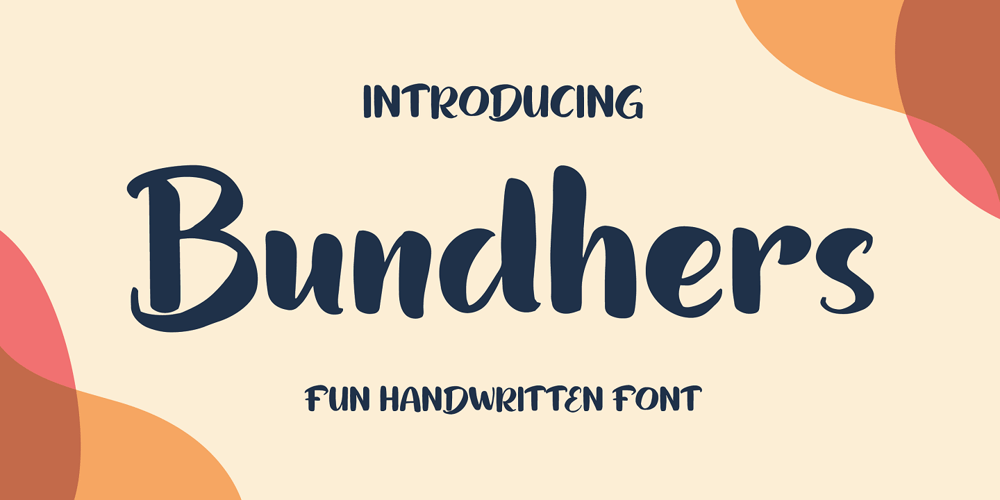
Bundhers
Bundhers font
Bundhers Font Family was designed by Patria Ari Wijonarko and published by Patria Ari. Bundhers contains 1 styles and family package options. Bhunders – a fun handwritten typeface. With this font, you can use it for book and magazine cover, social media, headline, logo, crafts, merchandise, digital products, and more.This font available in Uppercase, Lowercase, Number, Symbol and also multilingual accent.